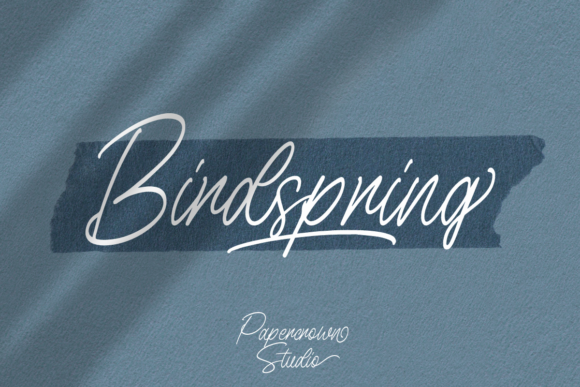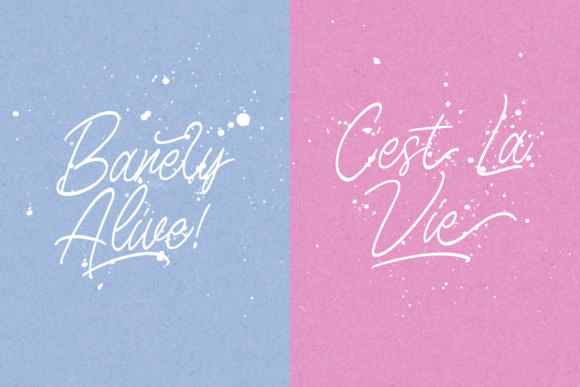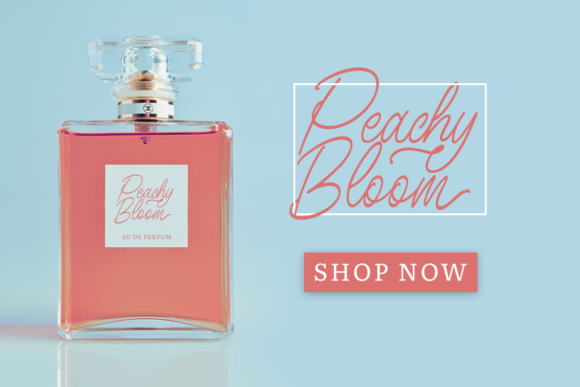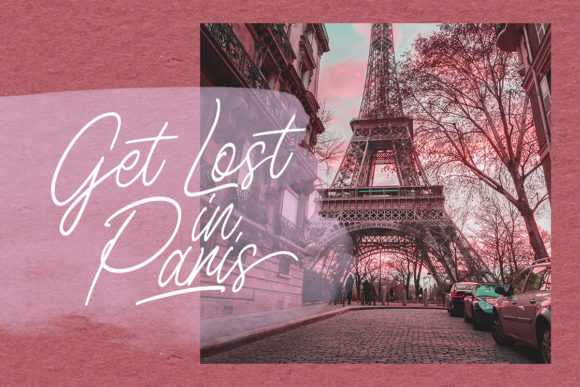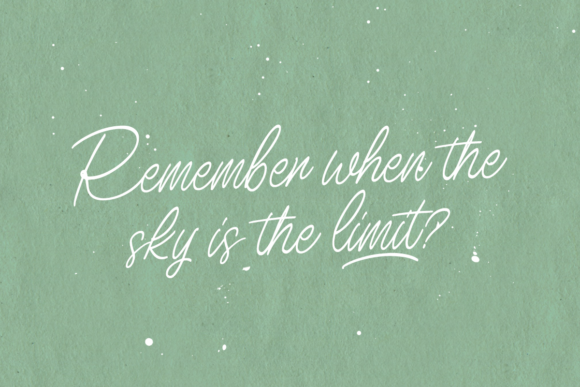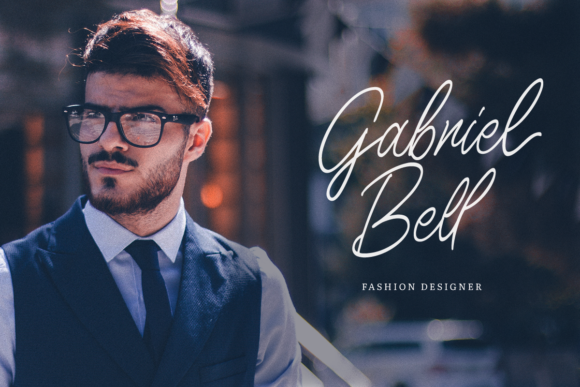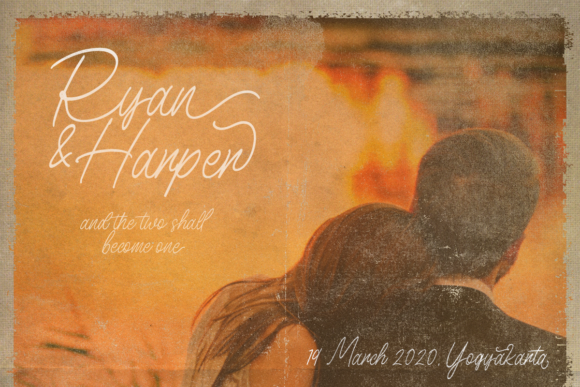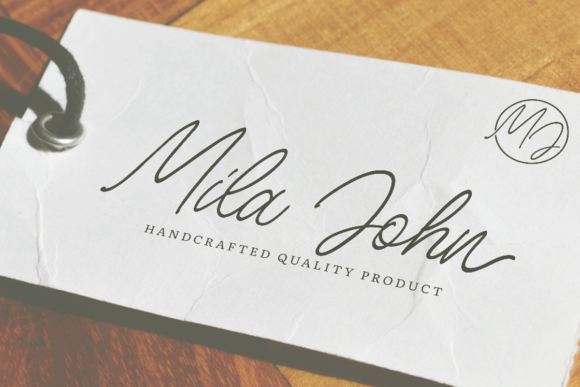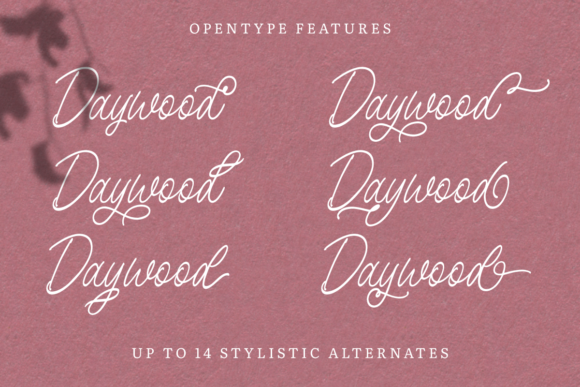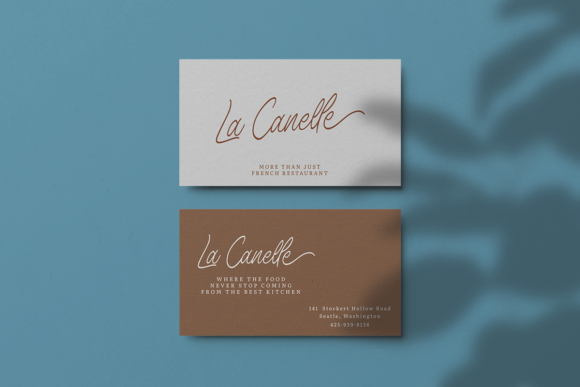
HomeScript FontsBirdspring Font Script Fonts Birdspring Font FacebookXPinterestWhatsApp Birdspring Font Poster 2 Birdspring Font Poster 3 Birdspring Font Poster 4 Birdspring Font Poster 5 Birdspring Font Poster 6 Birdspring Font Poster 7 Birdspring Font Poster 8 Birdspring Font Poster 9 Birdspring Font Poster 10 Birdspring Font Poster 11 Birdspring Font Poster 12 About Birdspring Font Birdspring is a charming and lovely script that will add a personal touch to any design idea! DOWNLOAD ON CREATIVE FABRICAThis font is sold and delivered by Creative Fabrica. Font Canyon may earn a commission if you buy through this link. People also explored Gistela | Handwritten Font Wingman Stranger Font Dafoge Font Play Arrow Font Aracne Ultra Condensed Font Milenia Font Bouncy Font Paradise Font 286 0 TagsBirdspring Font Previous articleWoodwork FontNext articleBrillion Font LEAVE A REPLY Cancel reply Comment: Please enter your comment! Name:* Please enter your name here Email:* You have entered an incorrect email address! Please enter your email address here Website: Save my name, email, and website in this browser for the next time I comment. Personal Use Free Lemon Milk Font Personal Use Free Read more about this font Avatarock Personal Use Free Read more about this font Arnprior Personal Use Free Read more about this font Hiters Personal Use Free Read more about this font BLOG Using Fonts in Digital Marketing: Tips to Strengthen Your Brand Identity In the realm of digital marketing, every visual element plays a crucial role in shaping a brand's identity, and fonts are no exception. The... Free Fonts Risk: Why Free Fonts Can Be Dangerous for Designers Top 7 Google Fonts Alternatives for Faster and Privacy-Friendly Web Design (2025) To increase your work productivity, choose the most readable fonts.